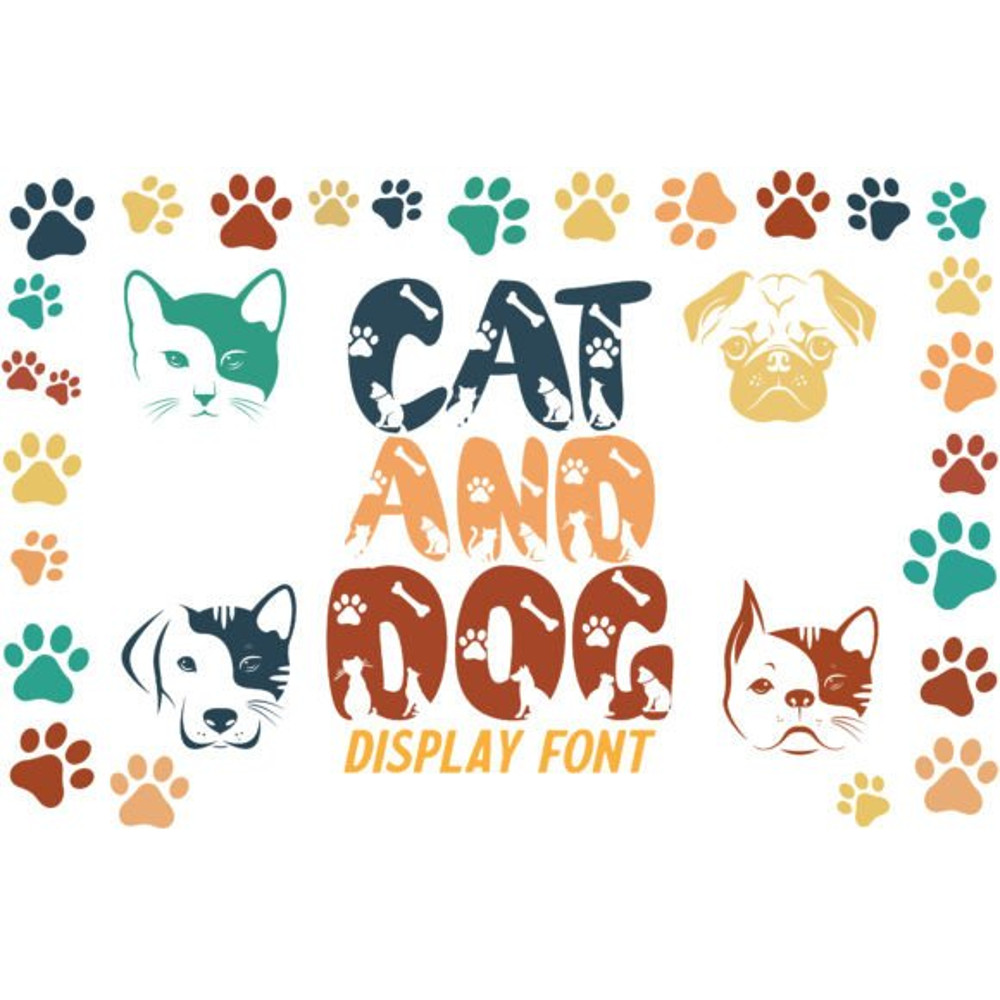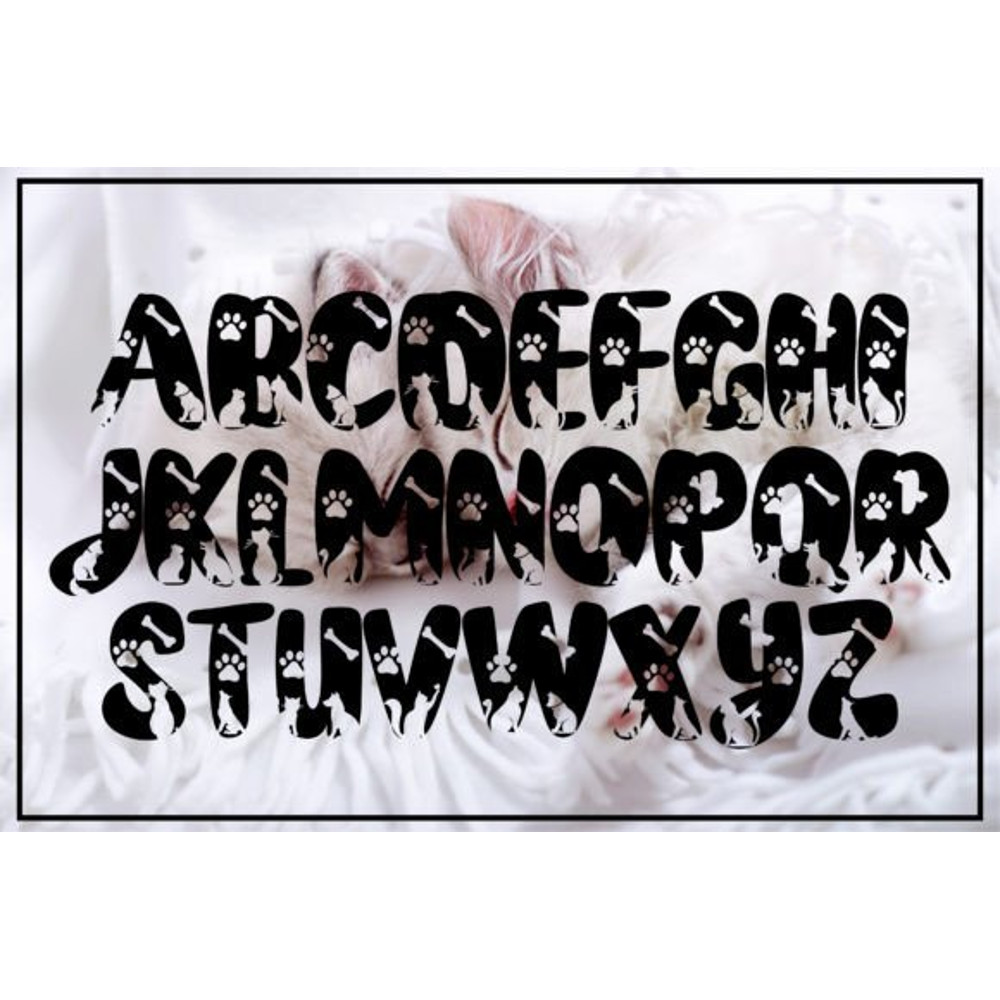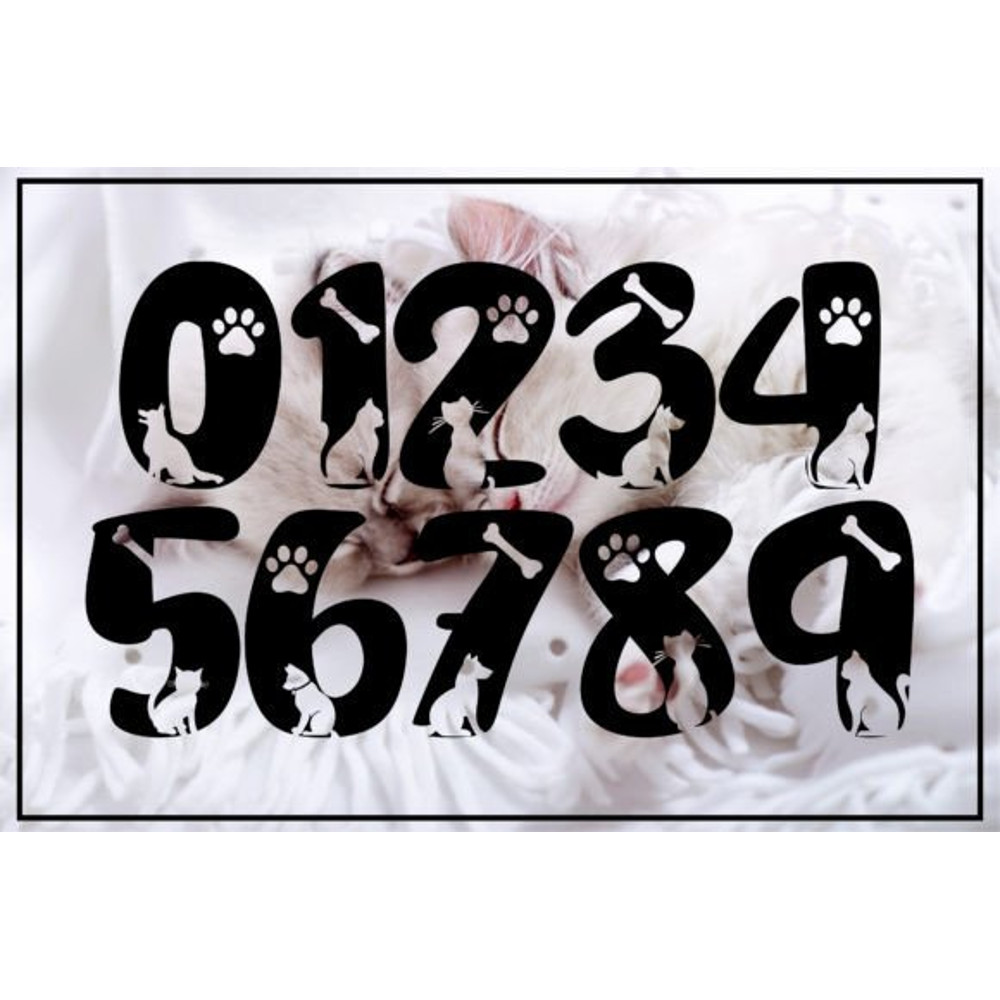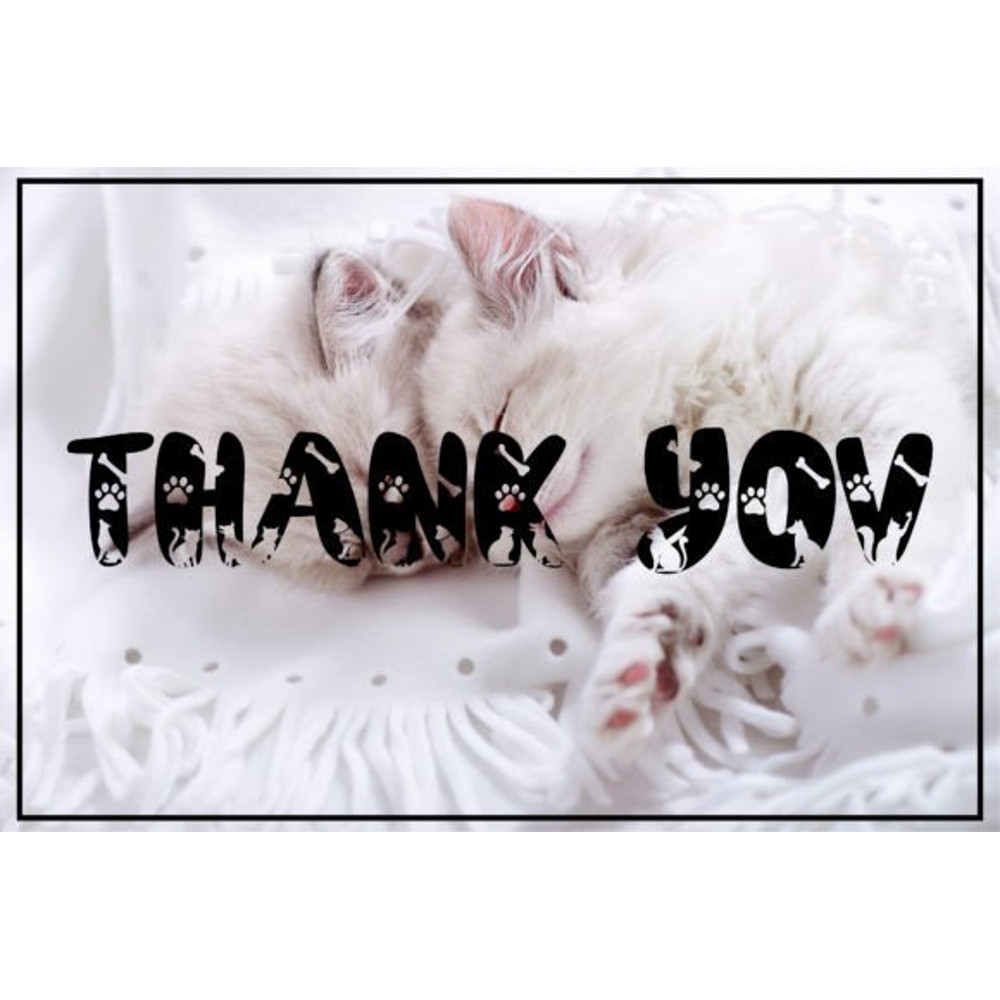
Cat and Dog Font
Cat and Dog is a thick-lettered and fun-looking decorative font. It is perfect for children-themed designs, especially when combined with bright colors.